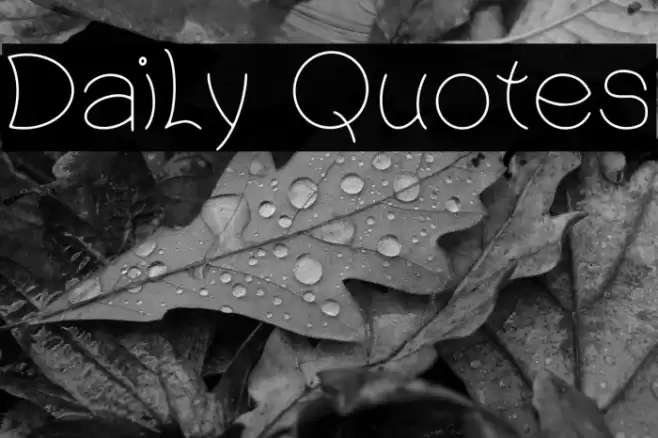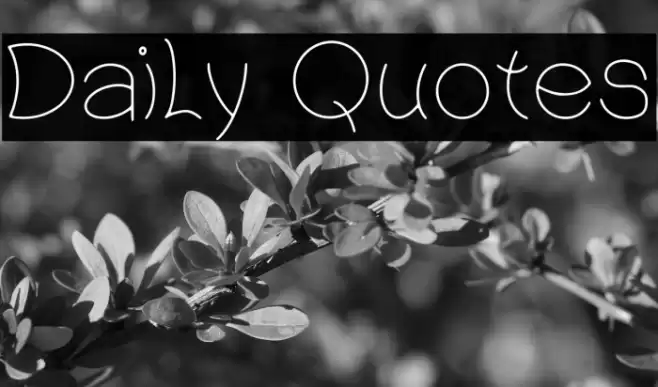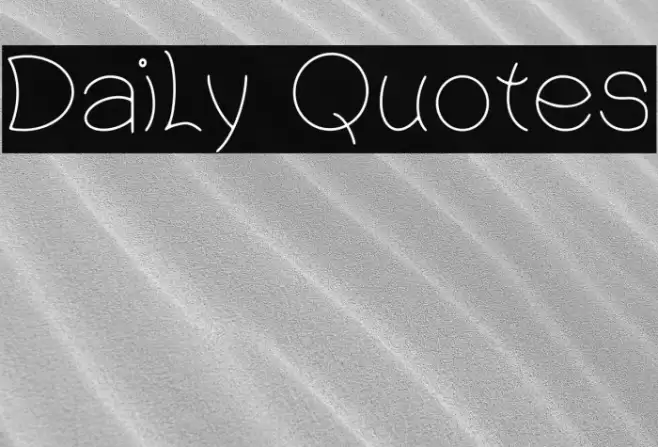
Daily Quotes Font
Daily Quotes Description
This font features a whimsical and playful design, characterized by its thin, flowing lines and unique, slightly irregular shapes. The letters have a hand-drawn quality, with a sense of movement and fluidity that adds a touch of creativity and spontaneity. The uppercase and lowercase letters maintain a consistent style, with rounded edges and a slight tilt that gives them a dynamic appearance. The numerals and special characters are designed to match the overall aesthetic, ensuring a cohesive look across all text elements. This font's distinctive style makes it ideal for projects that require a personal, artistic touch.
A whimsical, hand-drawn font with flowing lines and a playful style from Regular fonts.
- Proposed Projects: Ideal for greeting cards, children's books, playful branding, and creative invitations.
- Overall Style: Playful
- Use Case: Logos, Headlines, Creative projects